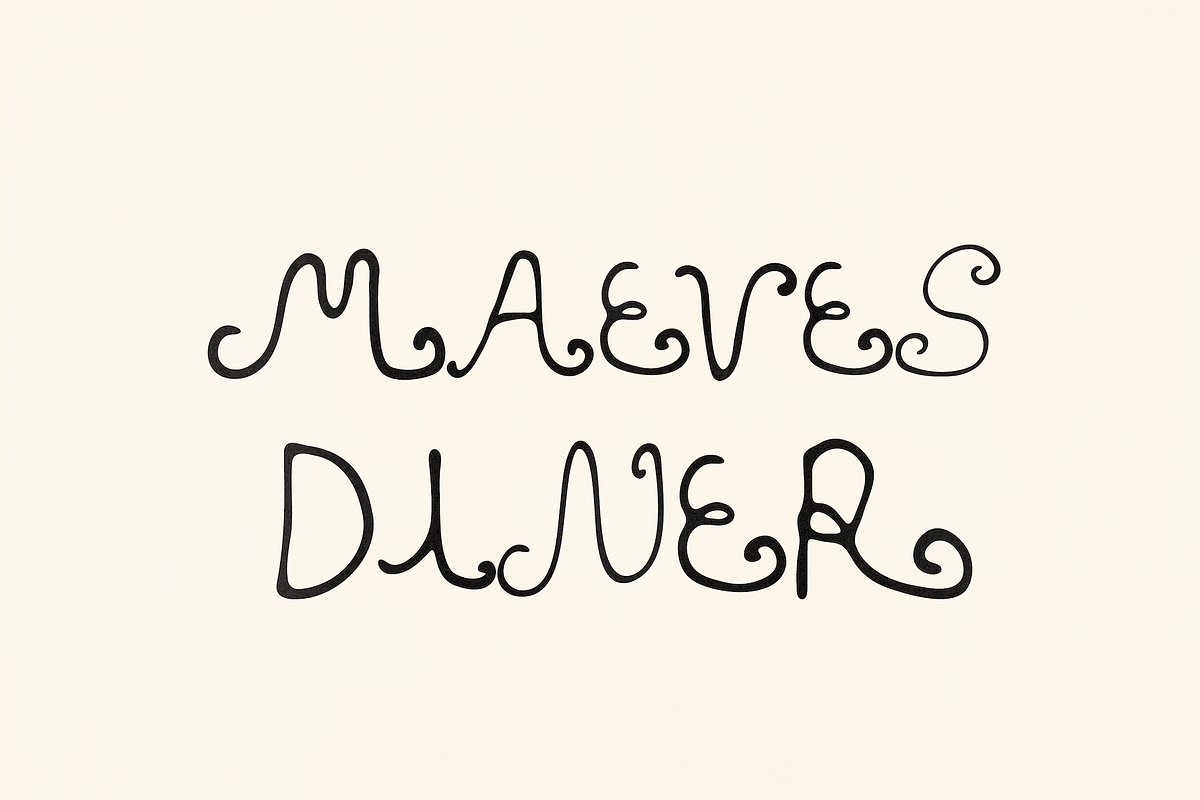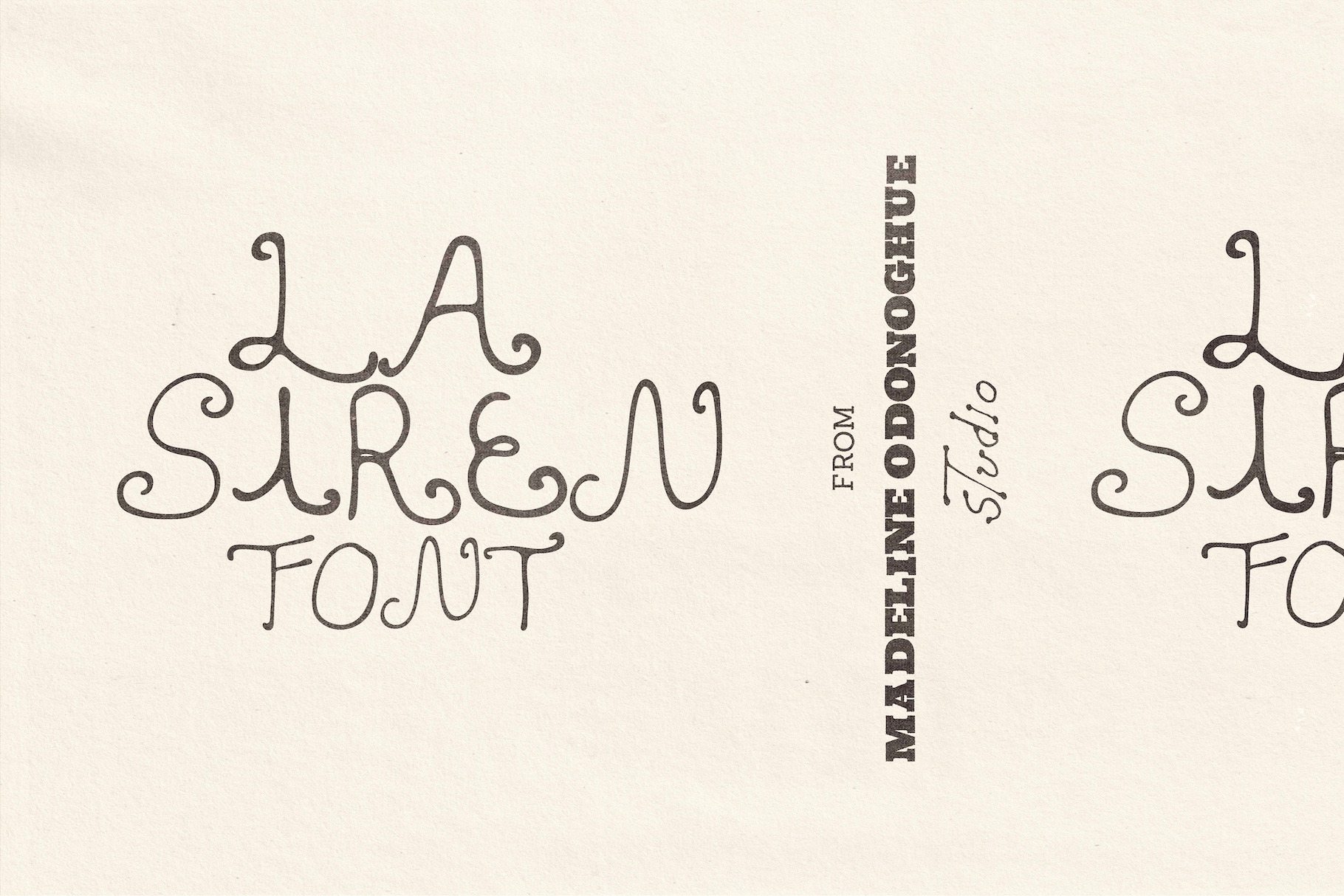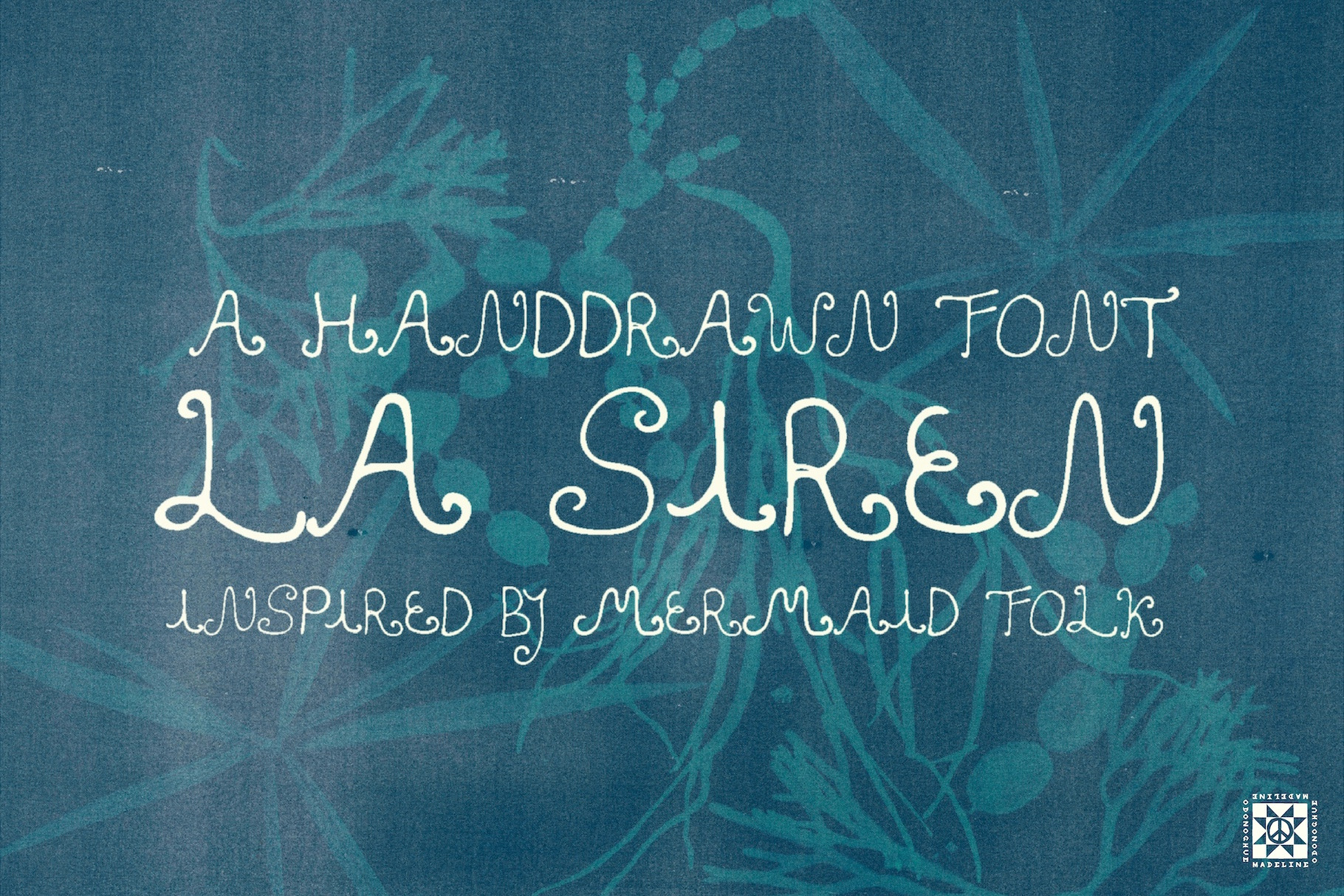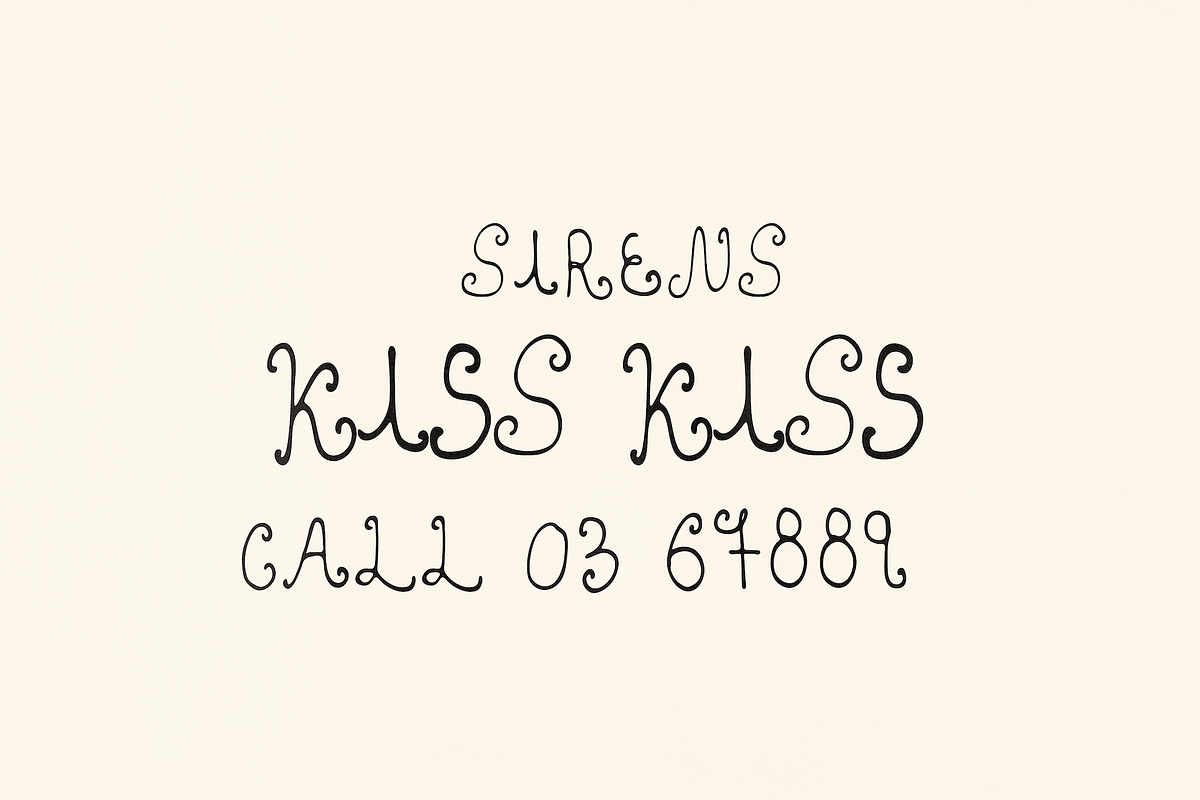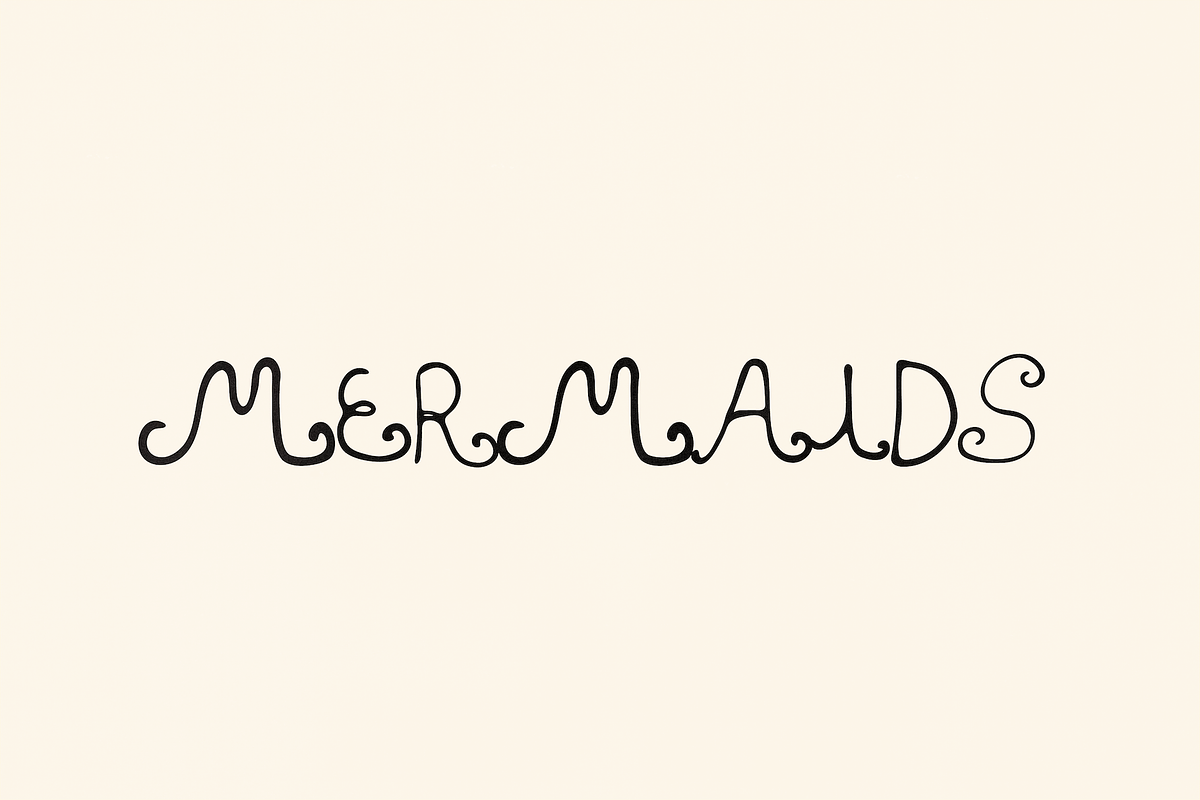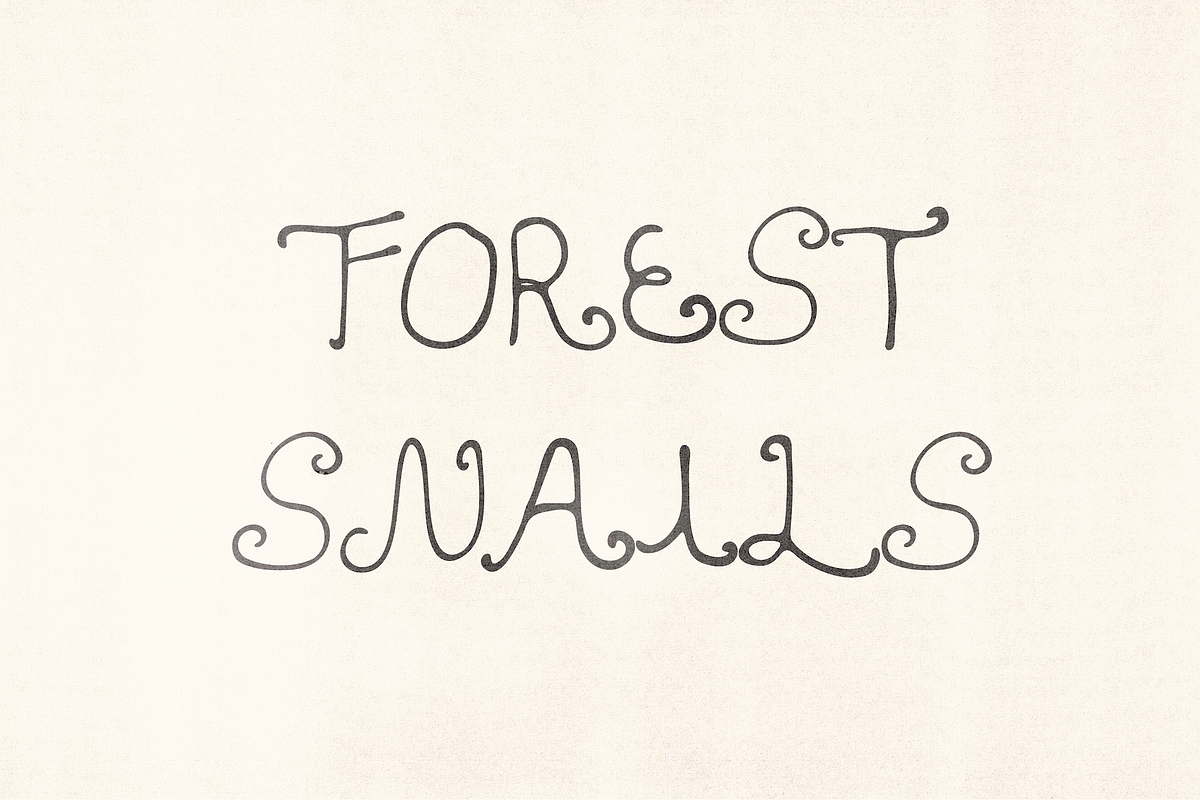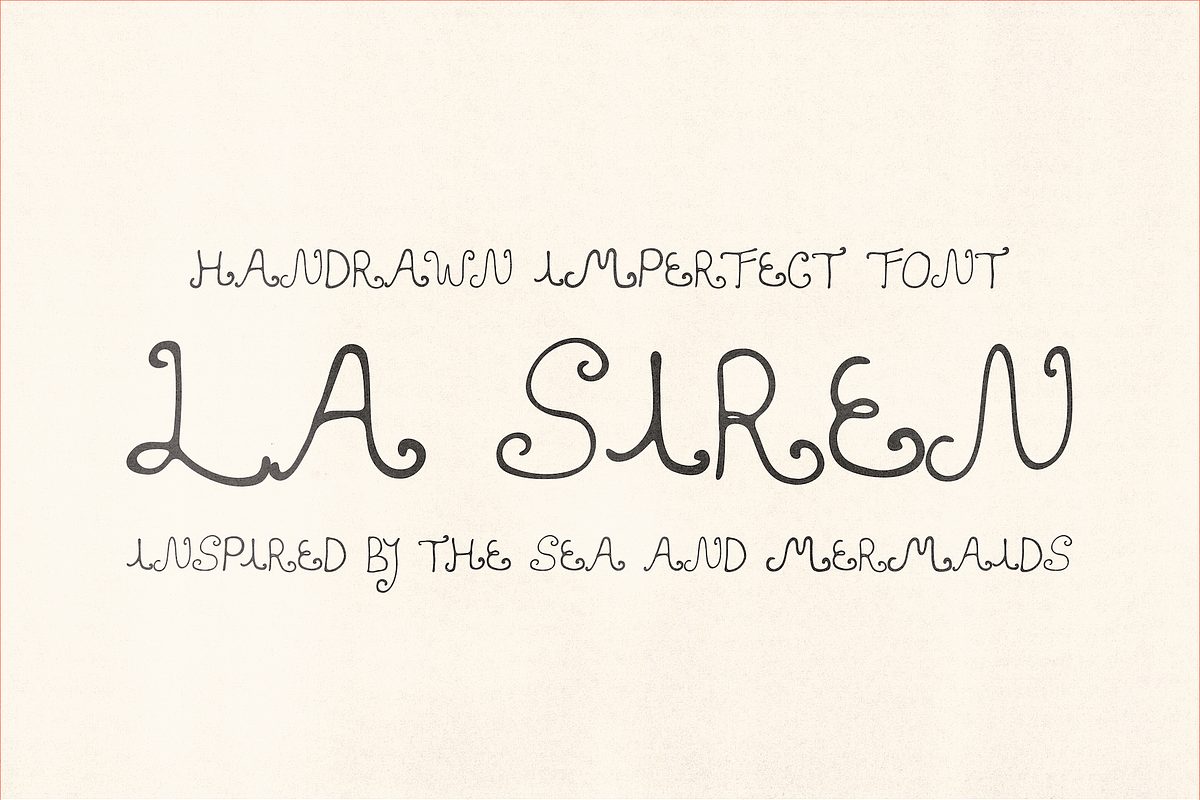
La Siren Hand Drawn Display Font
La Siren is a hand-drawn handwriting font shaped by the sea — mermaid folklore, salt-stained lighthouses, shipwrecked treasures, and coastal towns worn by time. It feels like seashells collected at low tide, or notes that have survived the spray of the ocean.
This font leans into true imperfection — uneven strokes, shifting sizes, textures that feel both organic and weathered. Its irregular rhythm gives La Siren a raw, human quality: alive, mysterious, and nostalgic, with a touch of seaside eeriness.
Because of its hand-crafted wobble, it works beautifully as a base for logos, menus, bar signage, posters, zines, and wordmarks that need imperfection and character. It’s the kind of font that invites you to play, adapt, and shape it further into your own.
Letters A–Z (mostly lowercase, with some alternates/caps)
Numbers 0–9
Minimal punctuation (full stop, dash, exclamation mark)
Menus + wine lists with a hand-made, coastal feel
Logos + branding with seaside or folk-inspired charm
Wordmarks that need irregularity and a human touch
Editorial layouts, zines, and posters with an oceanic or mysterious edge
La Siren isn’t polished or neat — it’s saltwater-washed, imperfect, and full of old-world charm.